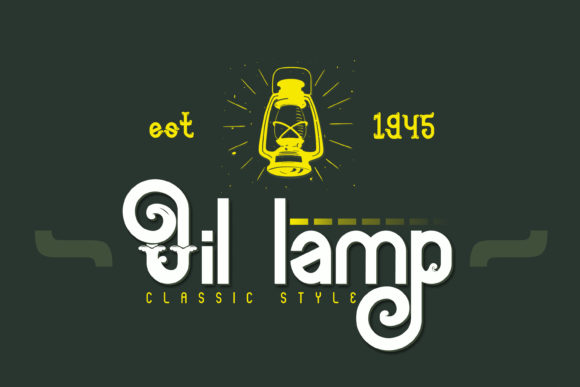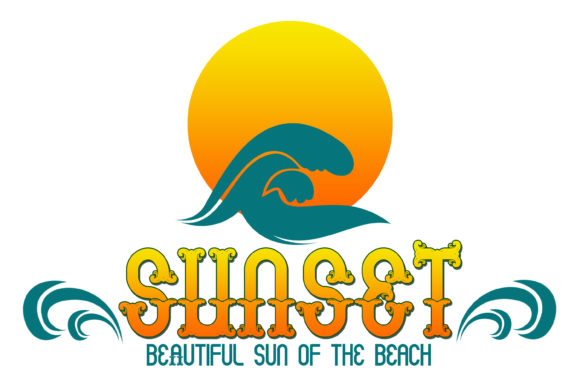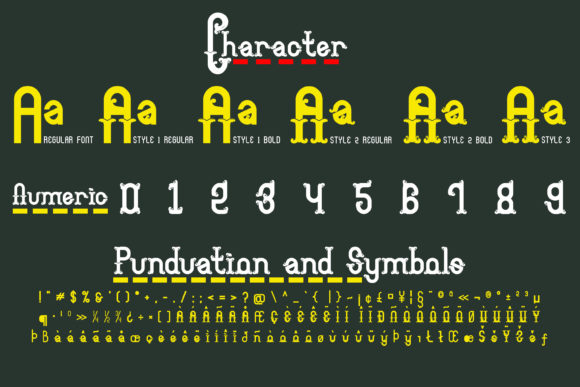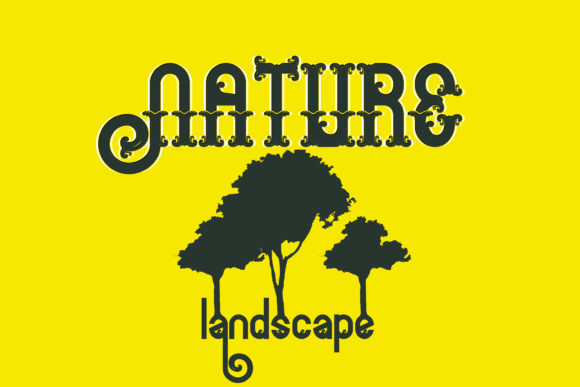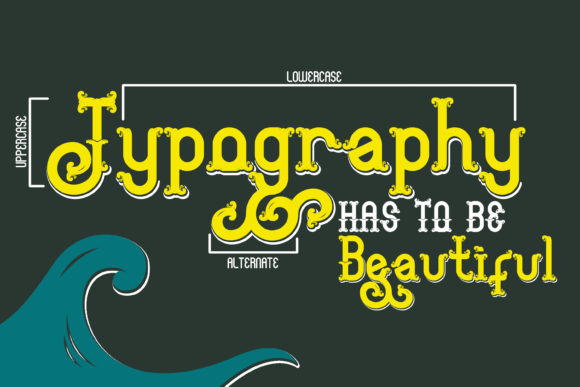
The Tropical Coolness of Aceh Island Font: A Designer’s Delight
I’ll never forget the design project that led me to discover Aceh Island Font. I was working on a branding campaign for a beach resort, and I was struggling to find the perfect font that captured the tropical vibe I was going for. The client wanted something fresh, fun, and Instagram-worthy, but I was coming up blank. That’s when I stumbled upon Aceh Island Font, and it was love at first sight! 🌴
The island-themed display font had a certain je ne sais quoi that transported me to a tropical paradise. Its unique blend of modern and rustic elements made it perfect for my project, and I knew I had to share it with the world.
An Honest Review: What I Love (and What I Don’t)
• ✅ Unique and eye-catching design that’s perfect for island-themed projects
• ✅ Supports OpenType features, glyphs, and stylistic alternates for added versatility
• ✅ Instantly evokes a sense of tropical coolness and relaxation
• ⚠️ Limited use cases outside of island-themed or tropical designs
• ⚠️ May not be the best choice for body text or lengthy paragraphs
The Story Behind Aceh Island Font
Legend has it that Aceh Island Font was inspired by the beautiful beaches and lush landscapes of Indonesia’s Aceh province. The font’s designer, a creative and adventurous soul, spent months exploring the island and soaking up its laid-back atmosphere. The result is a font that’s equal parts tropical and trendy.
Q: What is Aceh Island Font?
A: Aceh Island Font is a unique display font inspired by the tropical landscapes of Indonesia’s Aceh province.
Q: What can I use Aceh Island Font for?
A: Aceh Island Font is perfect for island-themed designs, such as branding, packaging, and advertising for beach resorts, travel companies, and tropical food and drink brands.